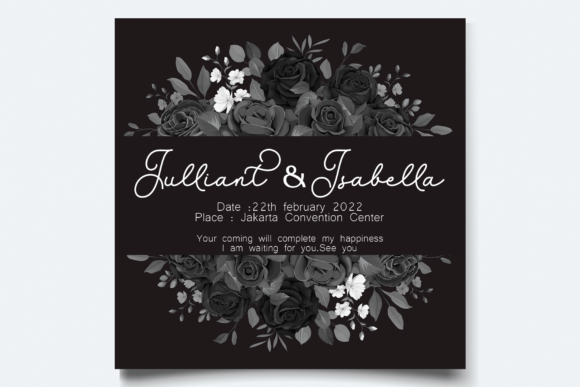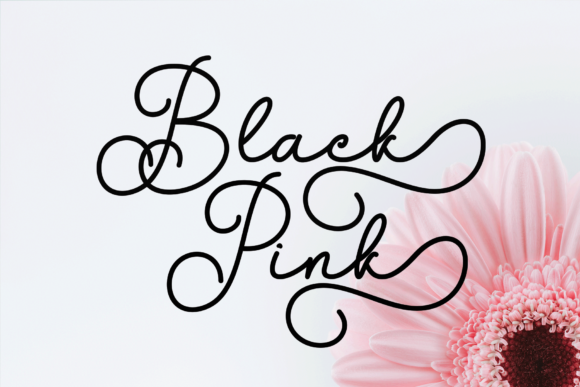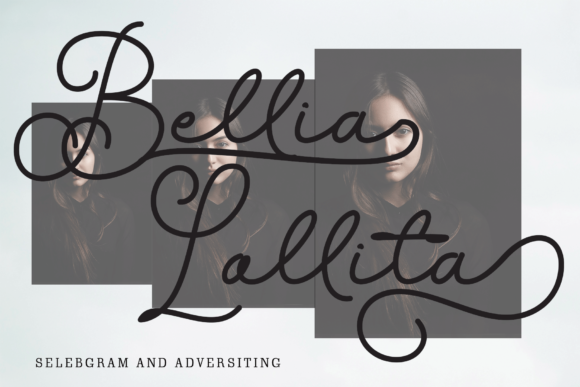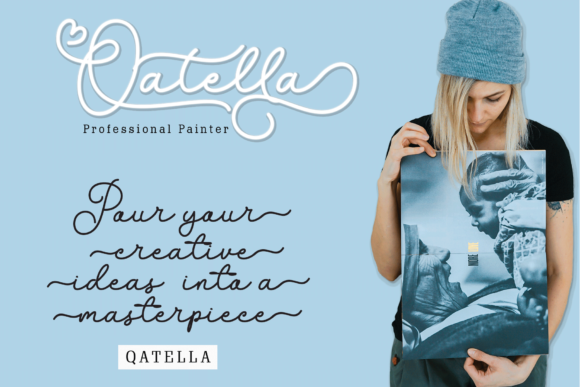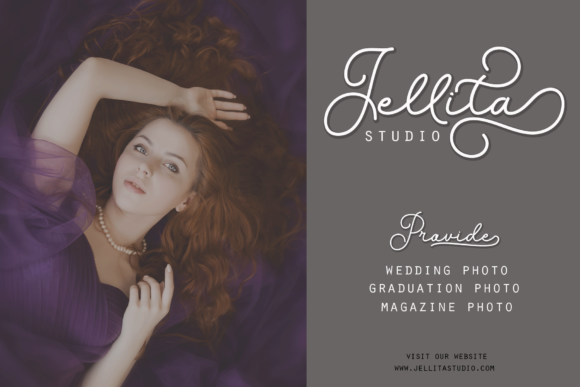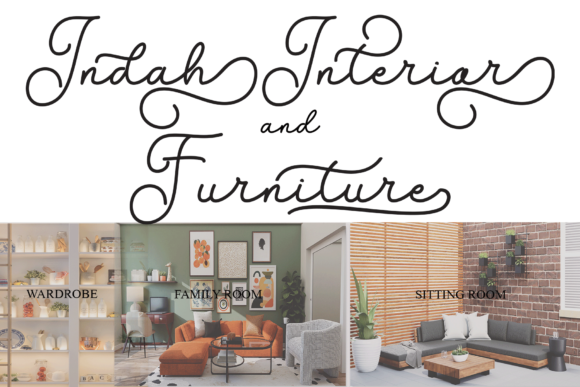
Bellagia Font: Elevate Your Designs with Elegance and Sophistication
In the world of typography, fonts play a crucial role in conveying the tone and personality of a design. For designers and crafters seeking to add a touch of elegance and sophistication to their creations, the Bellagia font is an excellent choice. This stunning script font is designed to impress, with its thin lettering and delicate curves that exude refinement and luxury.
What Makes Bellagia Font Stand Out?
Bellagia is a thin lettered and very delicately designed script font that is sure to captivate your audience. Its unique features include:
- PUA Encoding: Bellagia is PUA (Private Use Area) encoded, which means you can access all of the amazing glyphs and ligatures with ease. This feature allows you to unlock the full potential of the font and add a personal touch to your designs.
- Thin Lettering: The font’s thin lettering creates a sense of elegance and sophistication, making it perfect for designs that require a touch of refinement.
- Delicate Curves: Bellagia’s delicate curves add a touch of whimsy and femininity to your designs, making it ideal for projects that require a dash of personality.
Why Choose Bellagia Font?
Whether you’re a designer, crafter, or DIY enthusiast, Bellagia font is an excellent choice for a variety of projects. Here are some reasons why:
- Versatility: Bellagia font can be used for a wide range of projects, from wedding invitations and party decor to branding and advertising materials.
- Ease of Use: The font’s PUA encoding makes it easy to access and use, even for those without extensive design experience.
- Unique Look: Bellagia’s delicate design and thin lettering ensure that your projects will stand out from the crowd and leave a lasting impression.
Tips for Using Bellagia Font Effectively
To get the most out of Bellagia font, here are some tips to keep in mind:
- Pair with Bold Fonts: Combine Bellagia with bold fonts to create a striking contrast that adds visual interest to your designs.
- Experiment with Colors: Bellagia font looks stunning in a variety of colors, from soft pastels to rich jewel tones. Experiment with different colors to find the perfect combination for your project.
- Use for Headings and Titles: Bellagia font is perfect for headings and titles, where its elegant curves and thin lettering can be showcased to maximum effect.
Who Can Benefit from Bellagia Font?
Bellagia font is an excellent choice for a variety of professionals and DIY enthusiasts, including:
- Graphic Designers: Add a touch of elegance and sophistication to your designs with Bellagia font.
- Crafters: Use Bellagia font to create beautiful and unique craft projects, from wedding invitations to party decor.
- DIY Enthusiasts: Add a personal touch to your DIY projects with Bellagia font, perfect for creating custom signs, banners, and more.
In conclusion, Bellagia font is a stunning script font that is sure to elevate your designs with its elegance and sophistication. With its thin lettering, delicate curves, and PUA encoding, this font is perfect for designers, crafters, and DIY enthusiasts seeking to add a touch of refinement to their projects. So why wait? Add Bellagia font to your collection today and let yourself be amazed by the outcome generated.